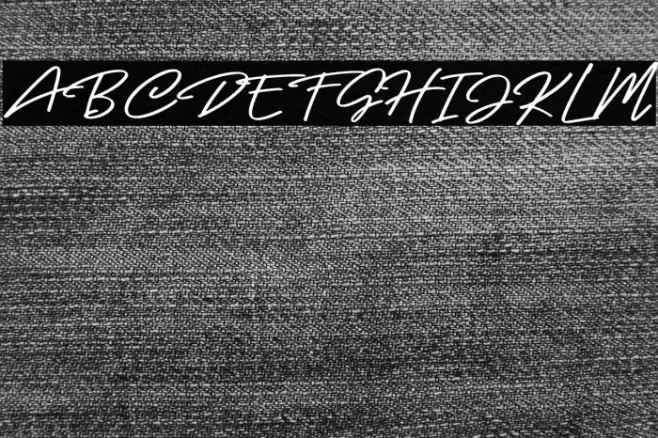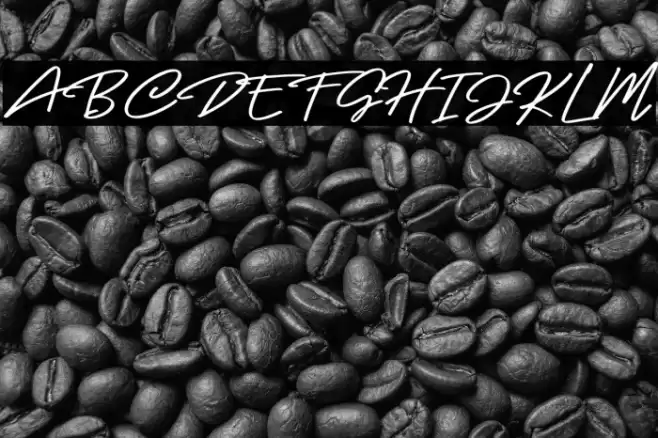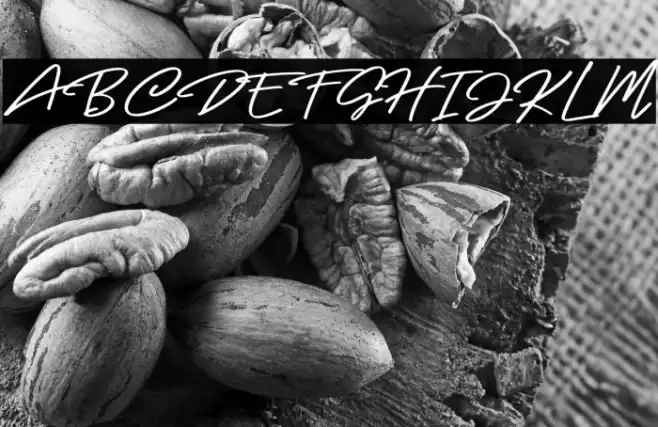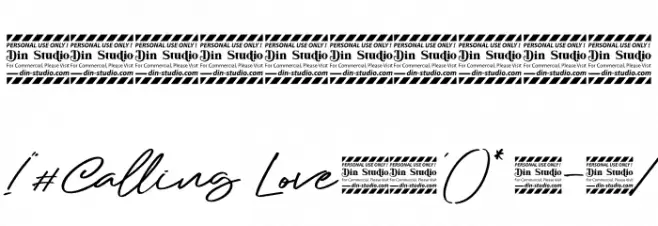
Calling Loves Script Font
Calling Loves Script Description
This script font exudes elegance and fluidity, characterized by its smooth, flowing strokes that mimic natural handwriting. The uppercase letters are bold and slightly slanted, adding a touch of sophistication, while the lowercase letters maintain a consistent rhythm with their connected forms. The font's overall appearance is both stylish and approachable, making it ideal for projects that require a personal touch. The special characters are thoughtfully designed to match the script's aesthetic, ensuring a cohesive look across all text elements.
A stylish and elegant script font with smooth, flowing strokes from Uncategorized fonts.
- Font: Calling Loves Script
- Proposed Projects: Ideal for wedding invitations, greeting cards, branding, and social media graphics.
- Overall Style: Elegant
- Use Case: Logos, Invitations, Social Media